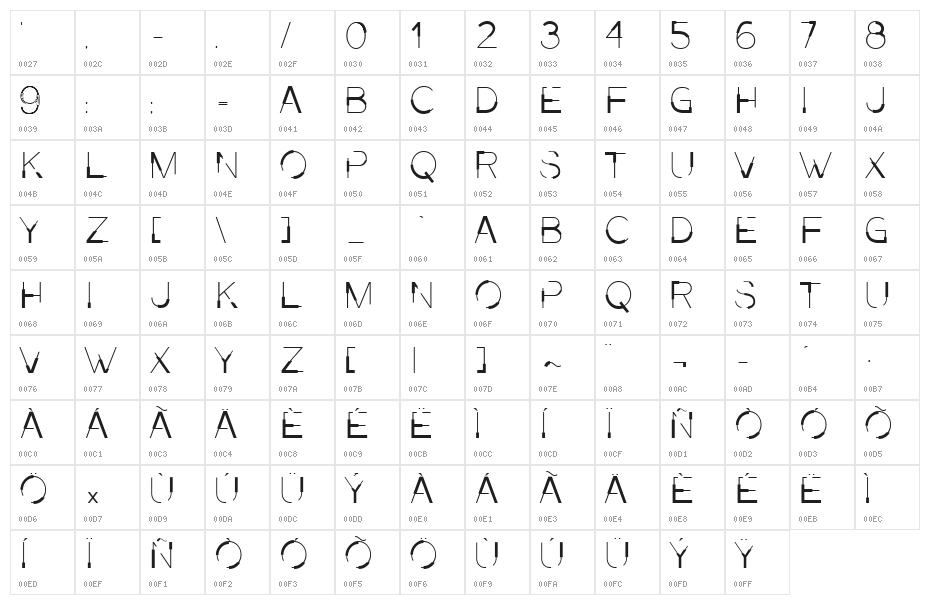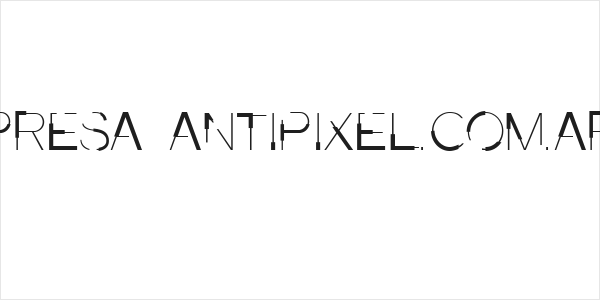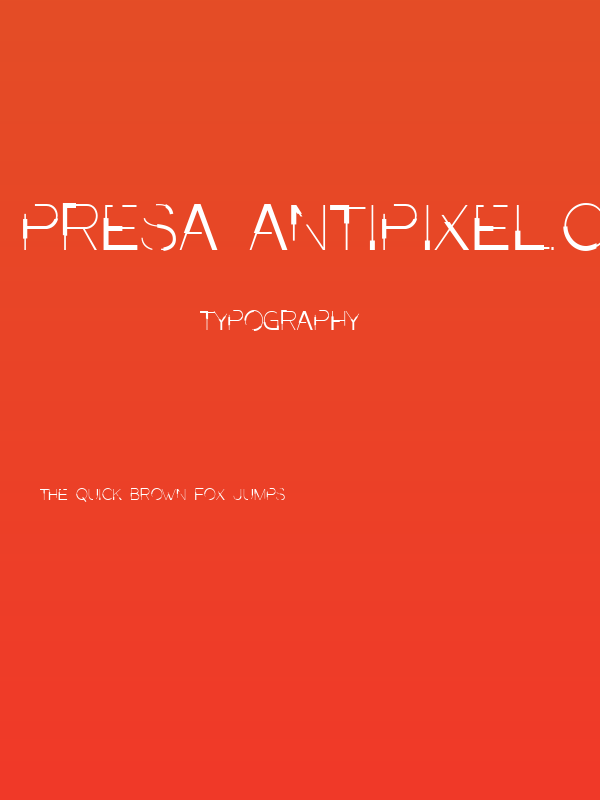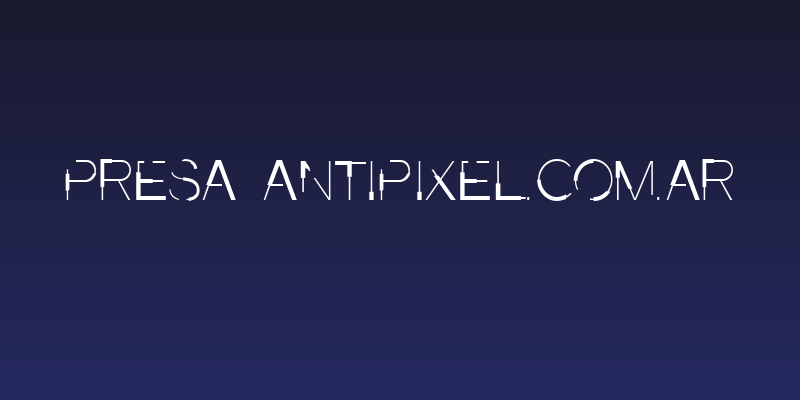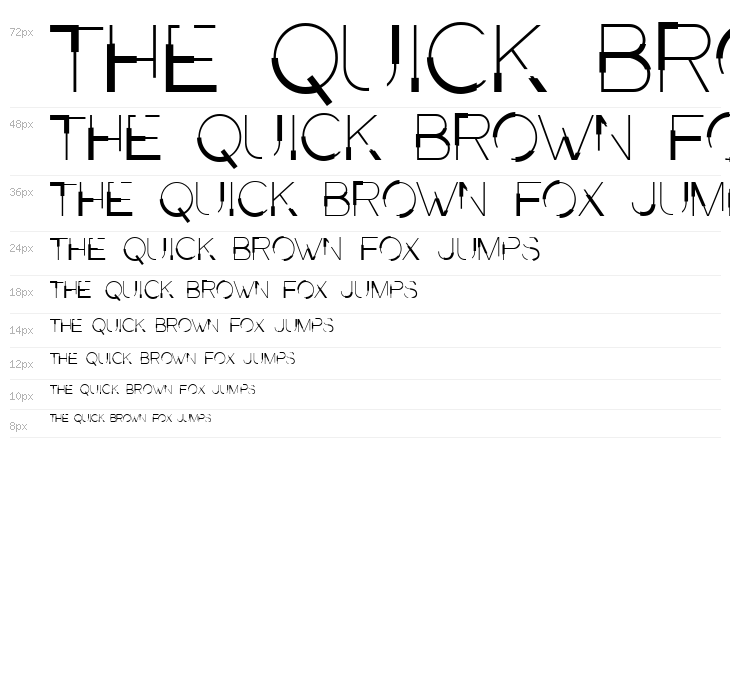
This font features a modern, geometric design with a distinctive cut-out style that creates a unique visual effect. The uppercase and lowercase letters maintain a consistent structure, with sharp angles and clean lines that give it a futuristic feel. The numerals are equally stylized, complementing the overall aesthetic. The font's minimalistic approach is balanced by its creative use of negative space, making it stand out in any design project. Its bold appearance is suitable for attention-grabbing headlines and logos, while its clear legibility ensures it can be used effectively in various contexts.
| Proposed Projects | Ideal for branding, advertising, and editorial design where a modern and distinctive look is desired. |